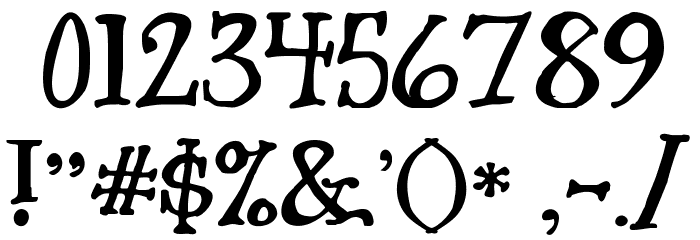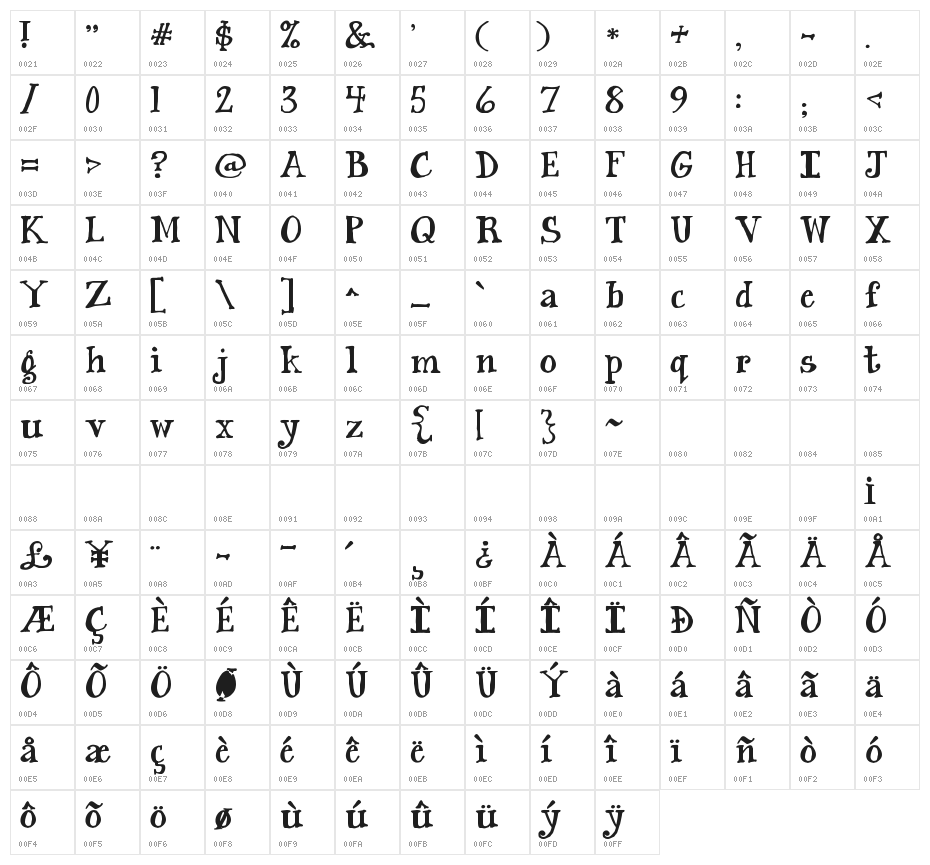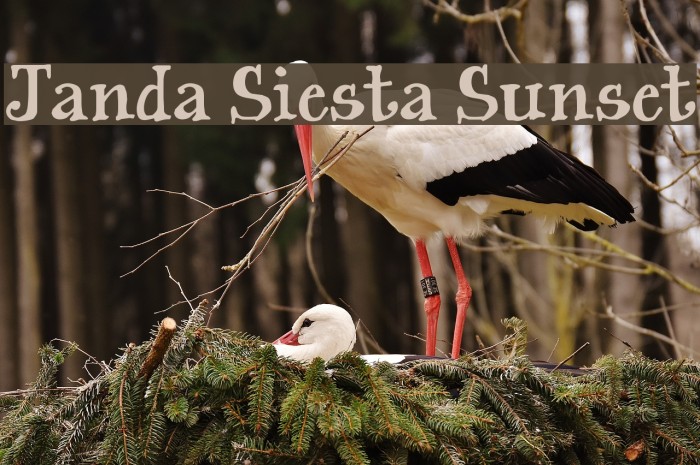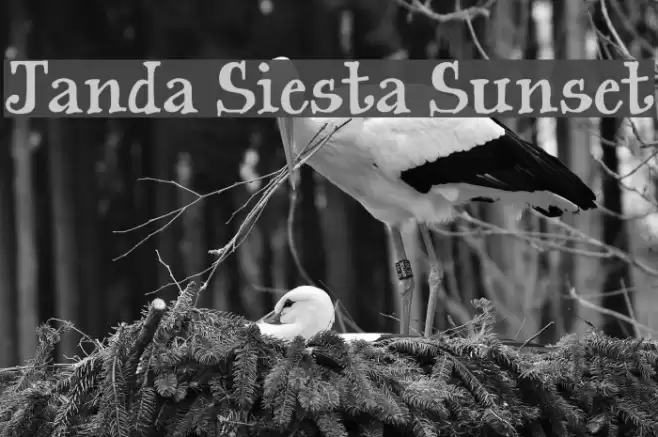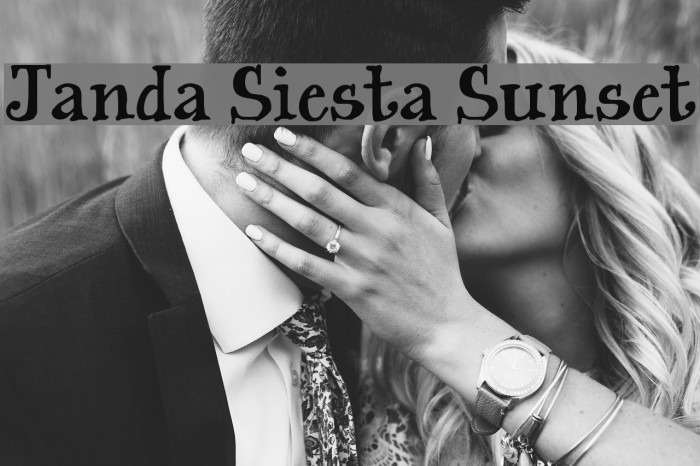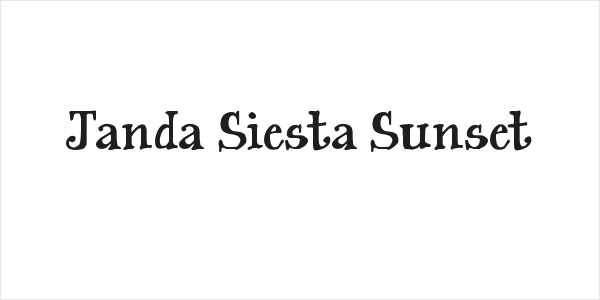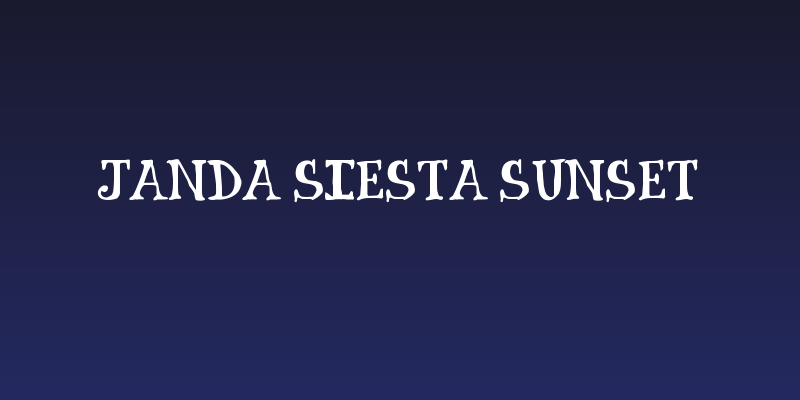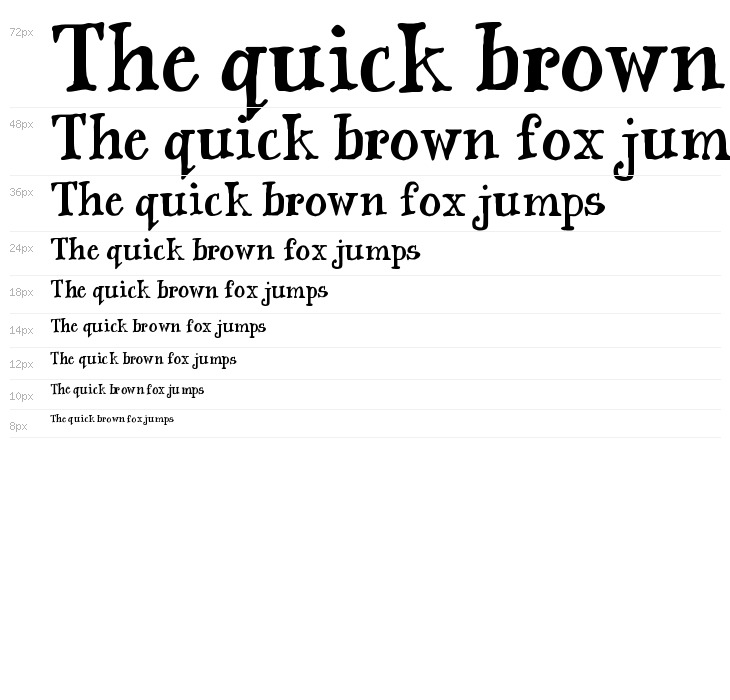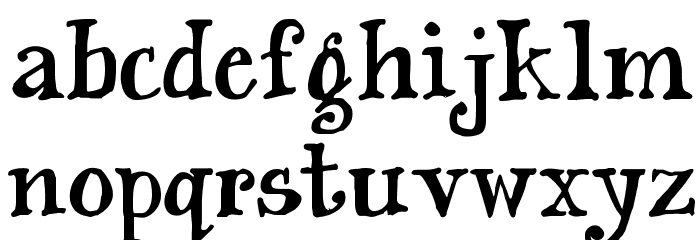
Janda Siesta Sunset Font
Janda Siesta Sunset Description
This font features a whimsical and playful design with a hand-drawn aesthetic. The characters have a slightly uneven baseline, giving them a casual and relaxed feel. The strokes are moderately thick, with some variation in width that adds to the handcrafted look. The uppercase letters are bold and prominent, while the lowercase letters maintain a consistent style with a touch of flair in certain characters like 'g' and 'y'. The numbers are equally playful, with a unique twist on traditional forms. Special characters are creatively styled, maintaining the overall theme of the font. This font is perfect for projects that require a fun and informal touch.